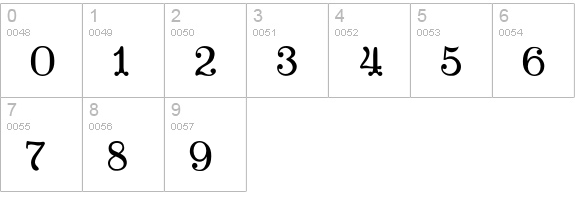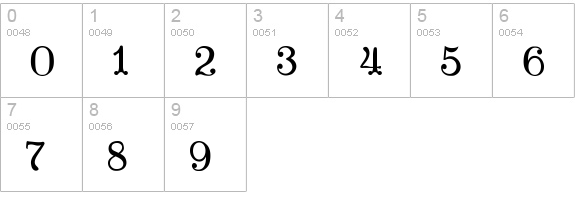
Marshall Font Details
Marshall font is an exquisite display typeface that exudes elegance and sophistication. Its timeless design is inspired by the classic serif fonts, but with a modern twist that adds a contemporary touch. With its sleek and slender letterforms, Marshall font captures attention and conveys a sense of professionalism. What makes Marshall font even more appealing is that it is freely available to download at FontsMarket.com. This means that you can easily access this remarkable font without any cost, making it an excellent choice for designers, creatives, and typographers on a budget. Whether you are working on a branding project, designing a logo, creating eye-catching headlines, or simply want to add a touch of refinement to your designs, Marshall font is a versatile option that can elevate your work to new heights. Its legibility and attention to detail make it suitable for both print and digital applications. The elegant curves and fine strokes of Marshall font create a harmonious balance between traditional and modern aesthetics. This font commands attention without being overpowering, allowing your message to shine through with clarity and style. With its extensive character set, Marshall font offers a wide range of glyphs including uppercase letters, lowercase letters, numbers, punctuation marks, and special characters. This versatility ensures that you have all the tools you need to bring your creative vision to life. Download Marshall font for free at FontsMarket.com today and experience the beauty and versatility of this remarkable typeface. Let Marshall font be the perfect companion for your next design project, and watch as it effortlessly adds a touch of sophistication and refinement.